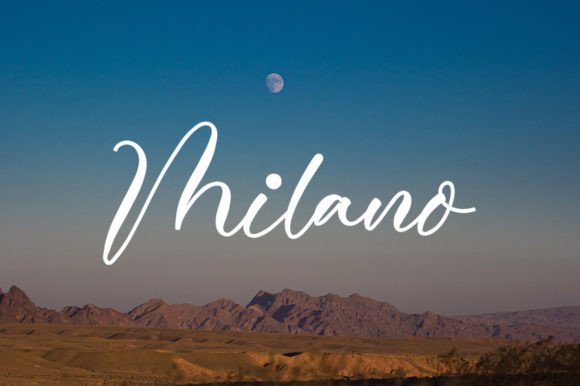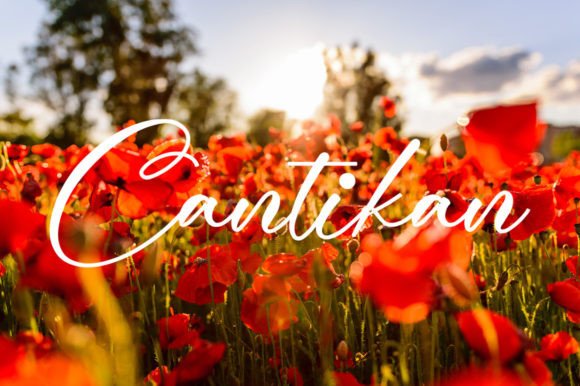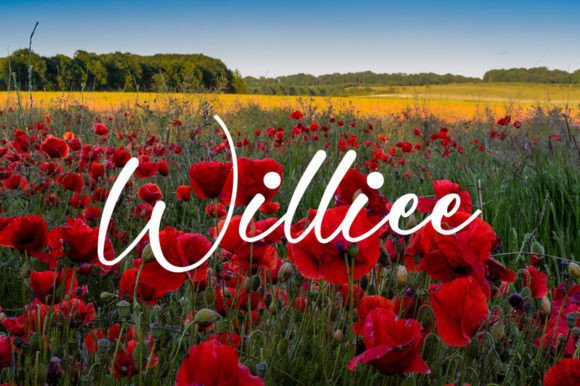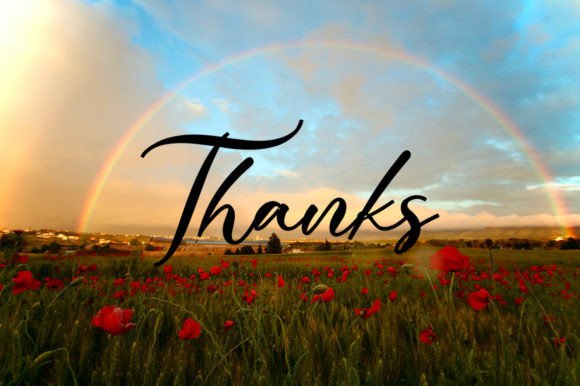
Kaeshad
Kaeshad: Exquisite Flowing Elegance for Discerning Creatives
Introducing Kaeshad – a masterfully crafted handwritten font where delicate strokes meet perfect balance. This PUA-encoded beauty gives you effortless access to its graceful glyphs and swashes, making every design feel like a custom calligraphic piece.
Flowing Grace
The perfect touch for refined designs
Why Kaeshad Inspires
• Perfectly Balanced: Harmonious character spacing and proportions
• Versatile Elegance: Adapts from wedding suites to luxury branding
Wedding Luxury
• Invitation calligraphy
• Place cards & programs
• Romantic signage
Premium Branding
• Beauty product packaging
• Boutique logos
• Luxury business cards
Artistic Projects
• Poetry book layouts
• Gallery wall quotes
• Stationery collections
Designer-Approved Features
• Character Set: 650+ glyphs including alternates
• Special Features: 30+ contextual swashes, ligatures
• Languages: Western & Central European support
🖋️ Calligrapher’s Secret: Alternate between standard and swash characters for organic, authentic-looking text flows.